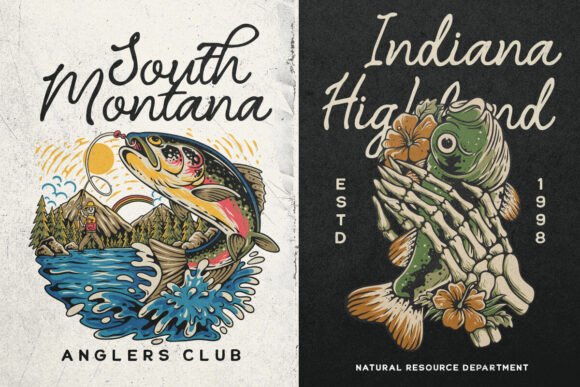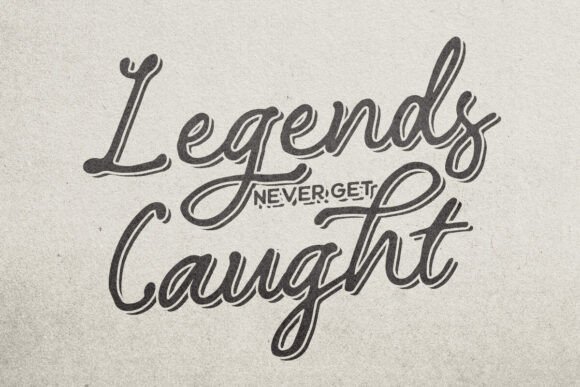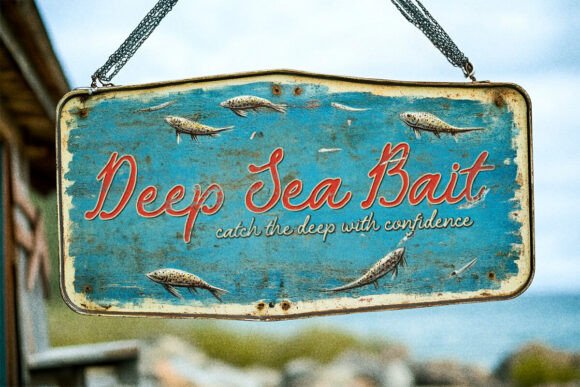
Rodlock Font
Rodlock is a vintage organic script font that captures the essence of retro charm with a natural, hand-drawn feel. Perfect for projects that need an authentic, nostalgic touch, Rodlock brings warmth and character to branding, logos, packaging, and more. Its flowing script lines blend organic curves with vintage style, making it a versatile choice for anything from artisanal product labels to retro-inspired graphics. Whether you’re creating a cozy café menu or a classic brand logo, Rodlock adds a distinctive, handcrafted look that stands out.